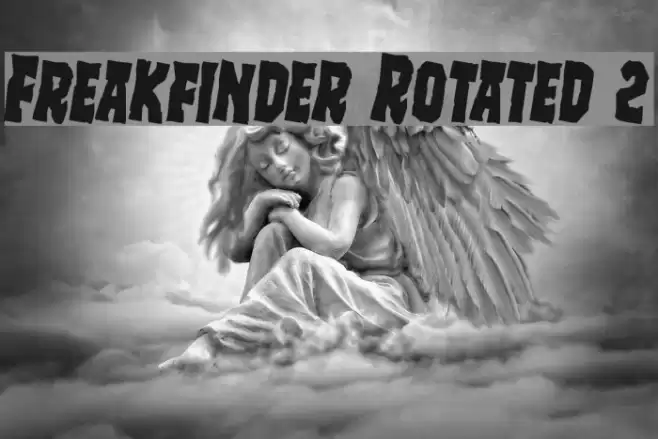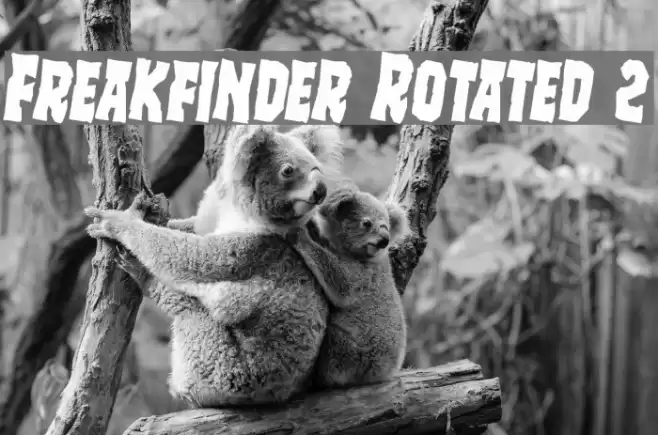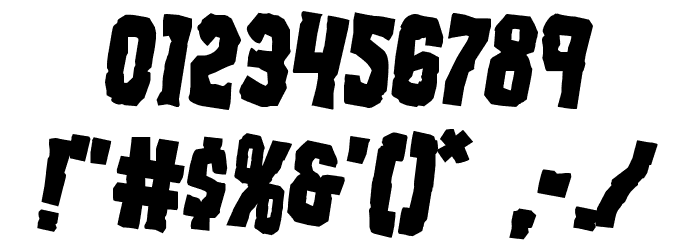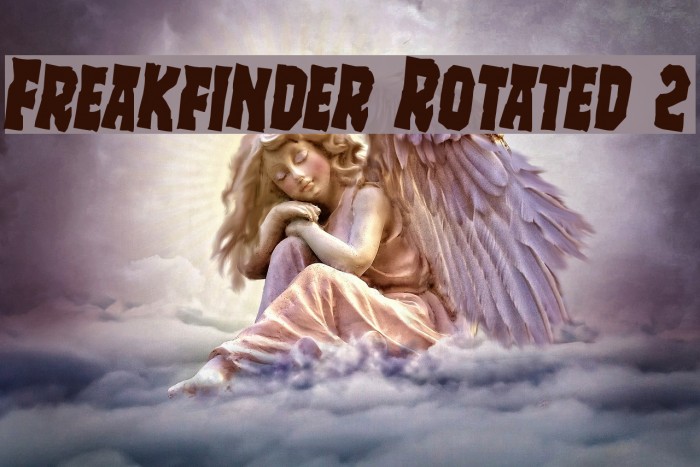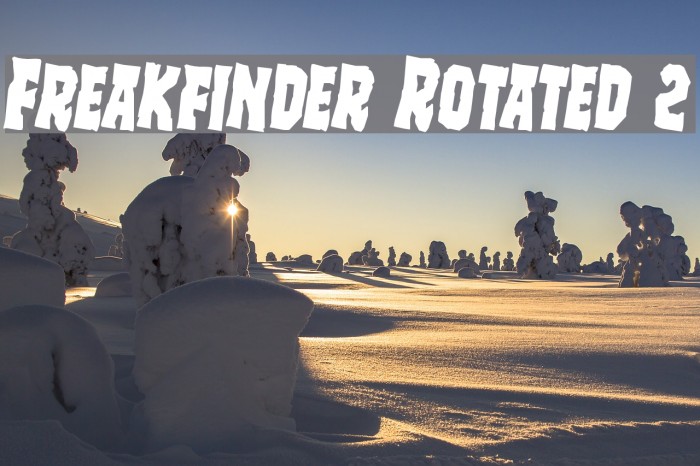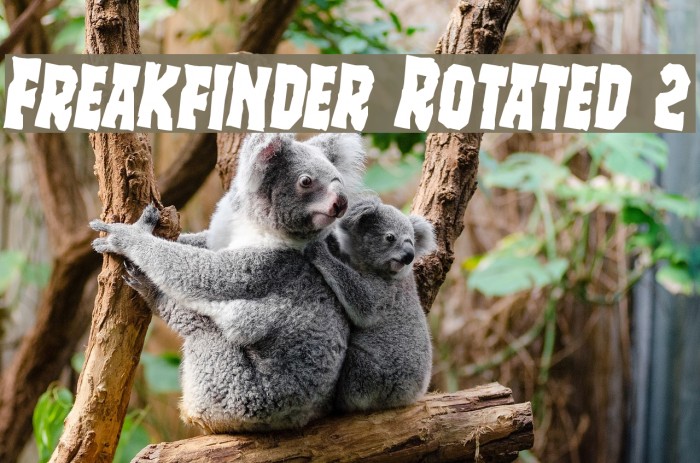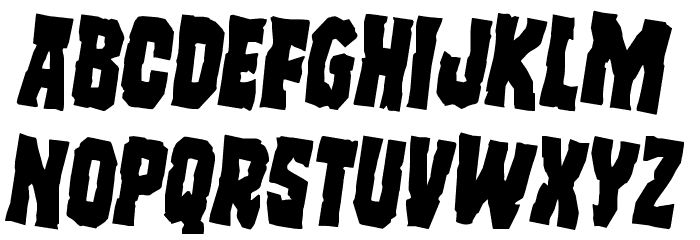
Freakfinder Rotated 2 Font
Freakfinder Rotated 2 Description
This font features a bold and dynamic style with a distressed, jagged appearance. Each character is uniquely crafted with uneven edges and a slightly tilted orientation, giving it a rebellious and energetic feel. The uppercase and lowercase letters maintain a consistent weight, contributing to a cohesive look. The numbers and special characters follow the same rugged design, making them stand out. This font is perfect for projects that require a strong, eye-catching display with a touch of edginess.
A bold, jagged font with a distressed and energetic style from Uncategorized fonts.
- Proposed Projects: Ideal for posters, album covers, video game titles, and any project needing a bold, edgy look.